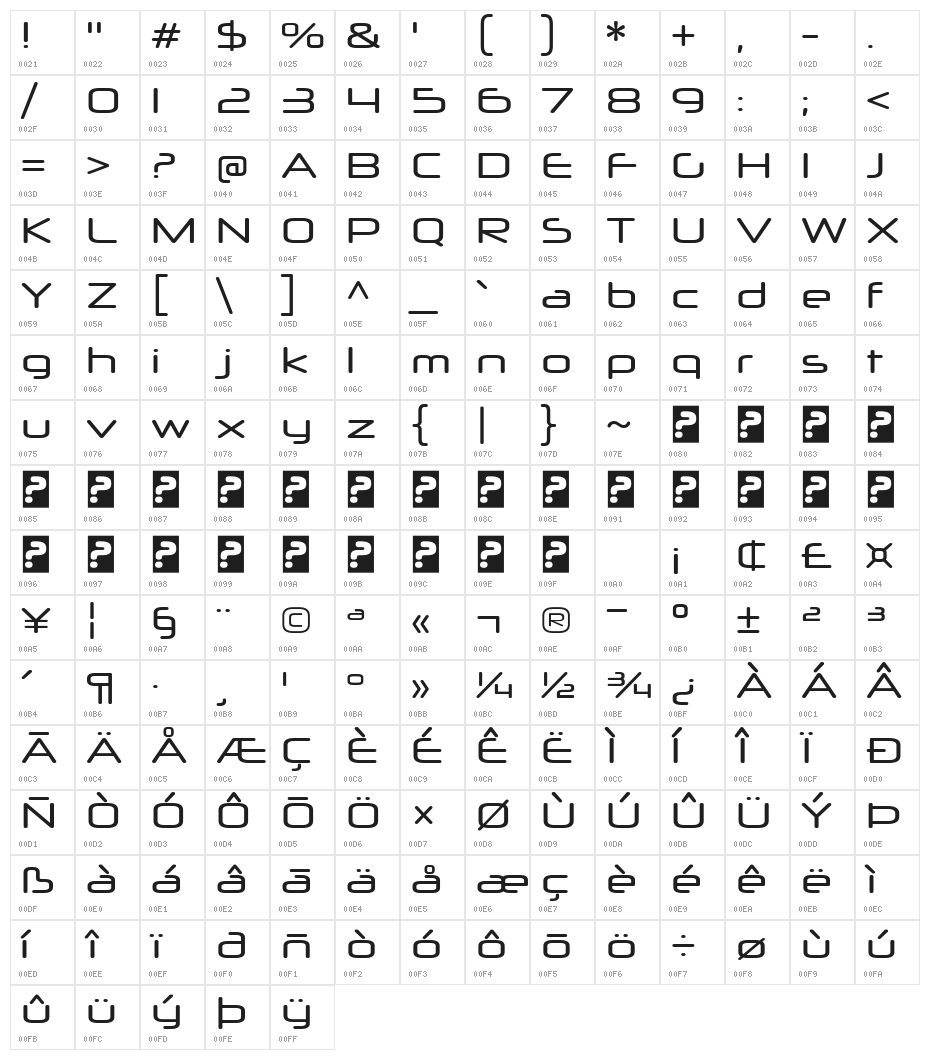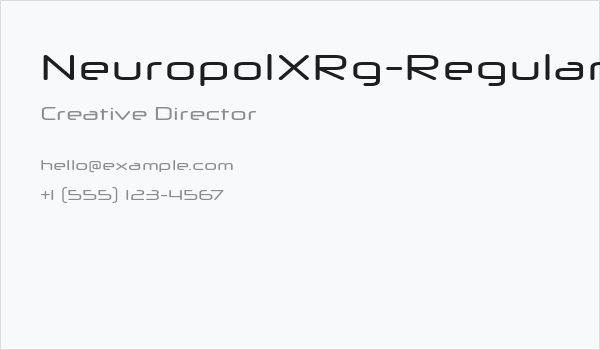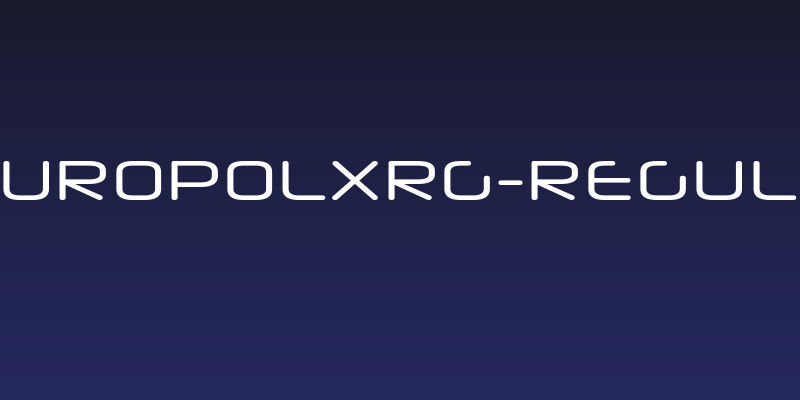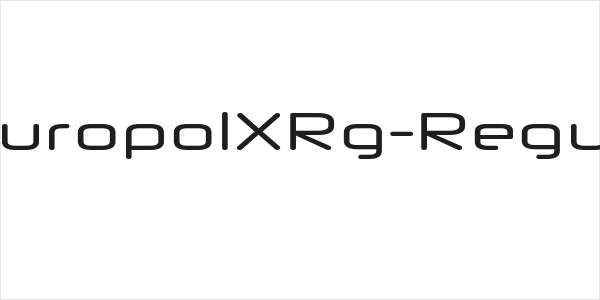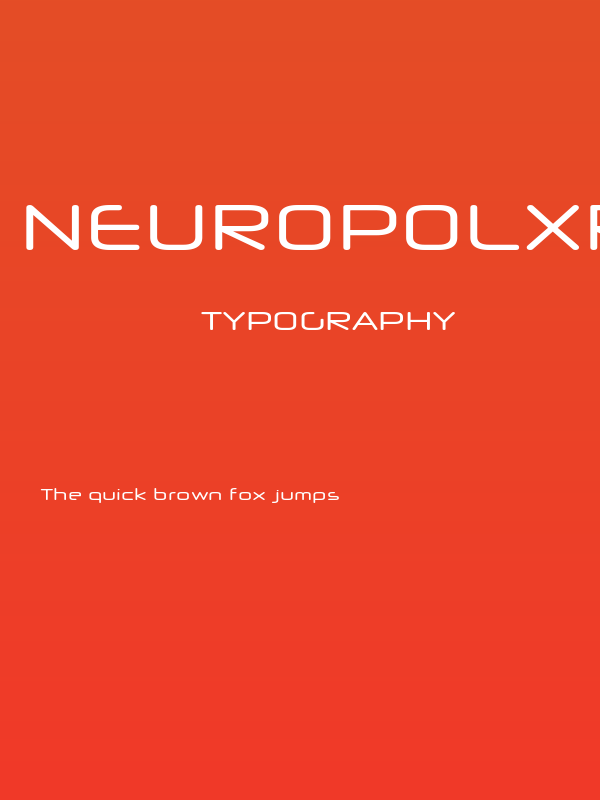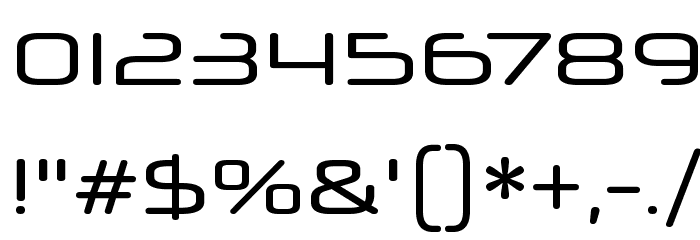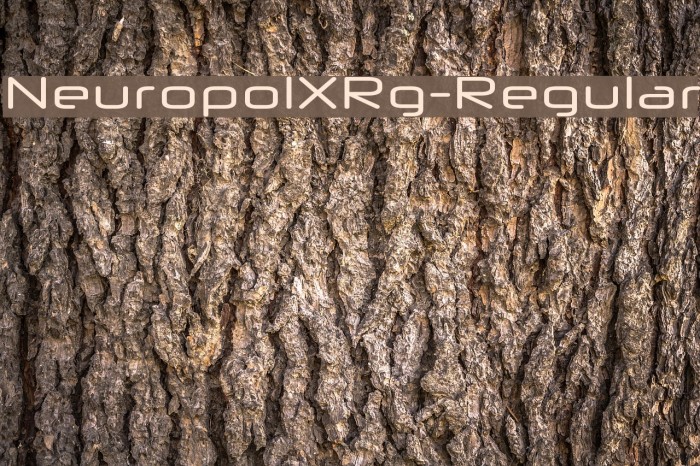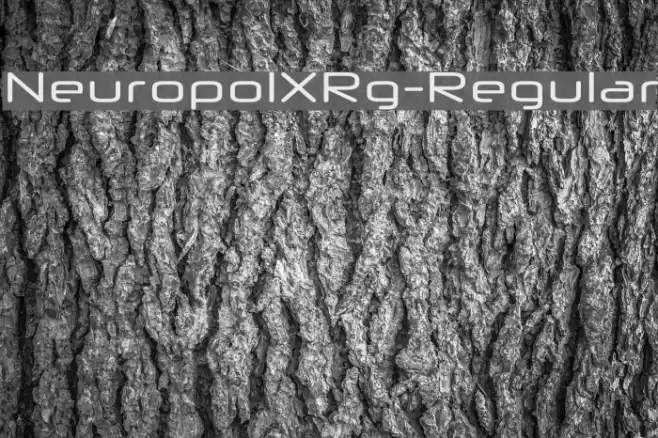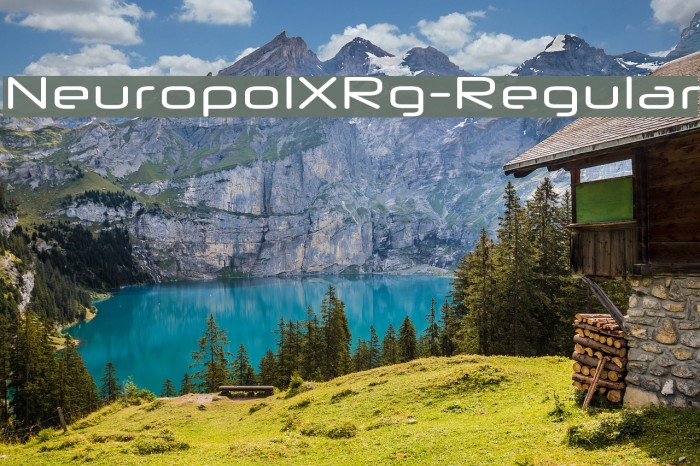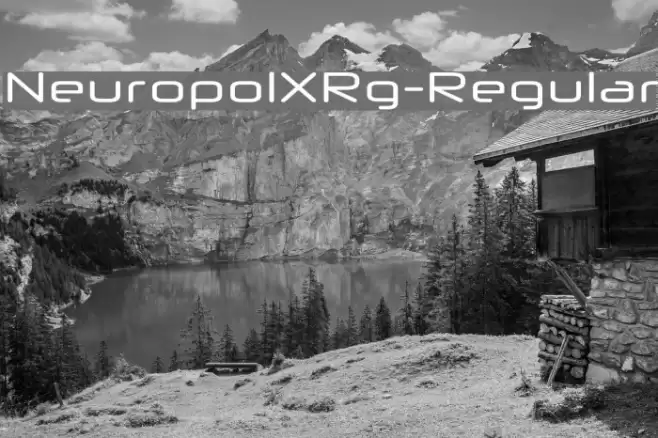
NeuropolXRg-Regular Font
NeuropolXRg-Regular Description
This font features a futuristic and sleek design, characterized by its geometric and rounded letterforms. The uniformity in stroke width and the absence of serifs give it a clean and modern appearance. The characters are slightly elongated with a consistent height, contributing to a streamlined look. Its distinct style is reminiscent of digital and technological themes, making it ideal for projects that require a contemporary and innovative touch. The font maintains clarity and readability, even at smaller sizes, while its unique aesthetic makes it stand out in larger displays.
| Use Case | Headlines, Logos, Digital interfaces |
| Proposed Projects | Ideal for tech-related branding, digital interfaces, sci-fi themed designs, and modern advertising. |